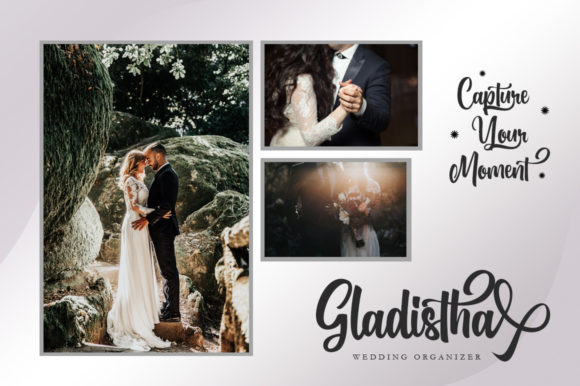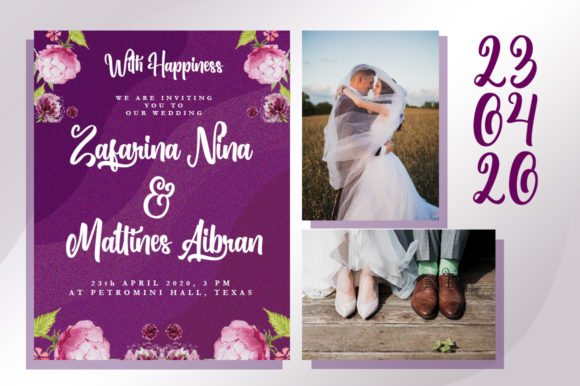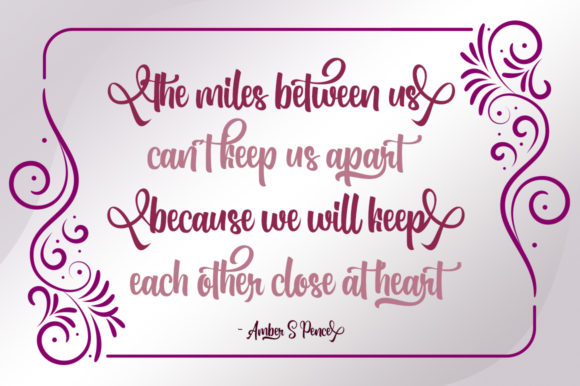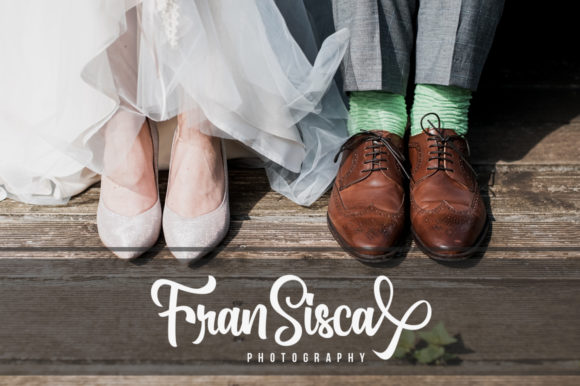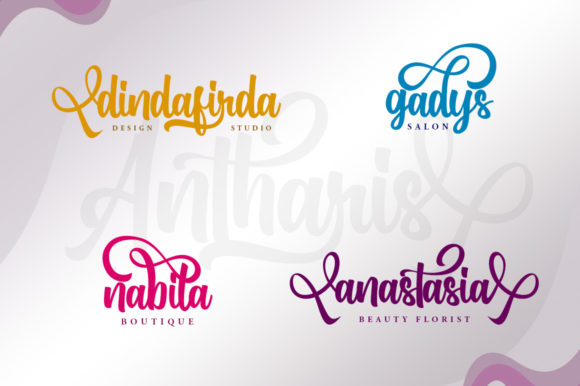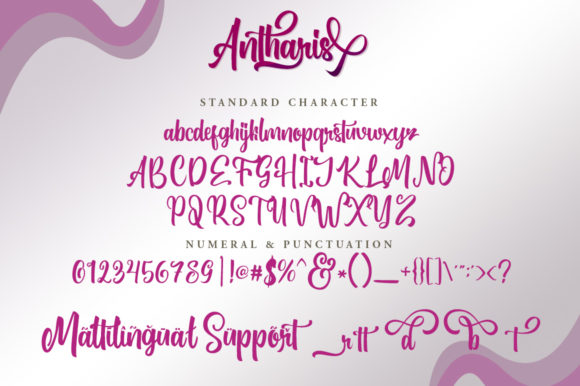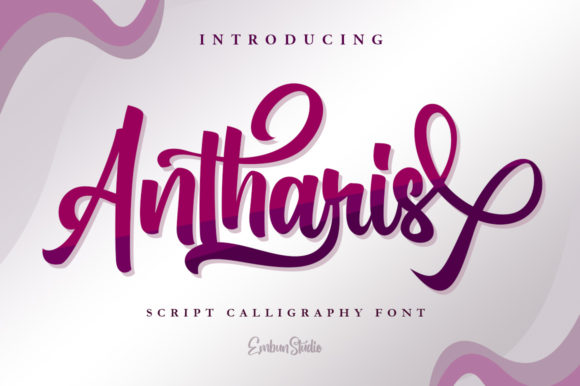
Introducing Antharis Font: Elevate Your Designs with Elegance
Are you a designer or crafter looking for a font that can add a touch of magic to your projects? Look no further than Antharis Font, a beautiful script font designed to bring elegance and sophistication to a wide range of design applications. In this article, we’ll take a closer look at Antharis Font, its features, and how it can elevate your designs to the highest level.
What is Antharis Font?
Antharis Font is a carefully crafted script font that combines the beauty of handwritten script with the elegance of refined typography. With its flowing curves and precise lines, Antharis Font is perfect for adding a touch of sophistication to any design project. Whether you’re working on branding, headings, wedding designs, invitations, signatures, logos, labels, or more, Antharis Font is the perfect choice.
Key Features of Antharis Font
- Elegant Script Design: Antharis Font features a beautiful script design that is both elegant and refined.
- Versatile: This font is perfect for a wide range of design projects, from branding and headings to wedding designs and invitations.
- High-Quality: Antharis Font is carefully crafted to ensure high-quality output, even at large sizes.
How to Use Antharis Font in Your Designs
Antharis Font is easy to use in a variety of design applications. Here are a few ideas to get you started:
- Branding: Use Antharis Font to create elegant and sophisticated brand identities that will set your business apart.
- Wedding Designs: Add a touch of romance and elegance to your wedding designs, including invitations, programs, and more.
- Headings and Titles: Use Antharis Font to create beautiful headings and titles for your designs, including posters, flyers, and more.
- Signatures and Logos: Create elegant signatures and logos that will add a touch of sophistication to your designs.
Why Choose Antharis Font?
There are many script fonts available, but Antharis Font stands out from the crowd. Here are a few reasons why:
- Unique Design: Antharis Font features a unique design that is both elegant and refined.
- High-Quality: This font is carefully crafted to ensure high-quality output, even at large sizes.
- Versatile: Antharis Font is perfect for a wide range of design projects, making it a great addition to any designer’s toolkit.
Antharis Font is a beautiful script font that is perfect for designers and crafters looking to add a touch of elegance and sophistication to their designs. With its elegant design, versatility, and high-quality output, Antharis Font is a great choice for a wide range of design projects. Whether you’re working on branding, wedding designs, headings, or more, Antharis Font is sure to elevate your designs to the highest level.